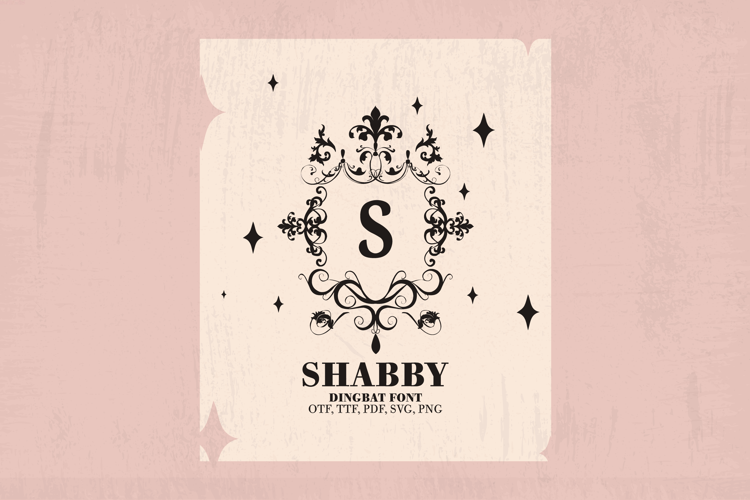
SHABBY CHIC FLOURISHES MONGRAMS Font
🎨 Font Name: Shabby by Minimalist Art Studio
🎨 Font Description: Shabby is a decorative dingbats font with elegant frames and flourishes—perfect for vintage branding, invitations, and romantic packaging.